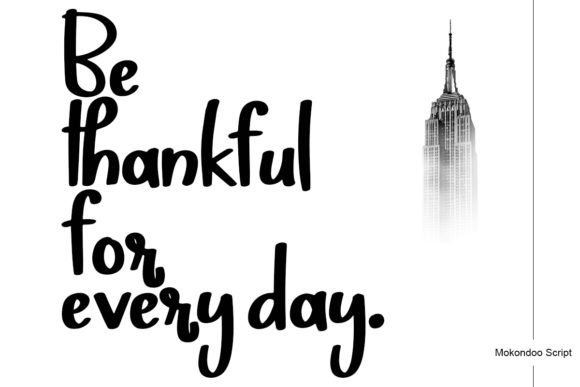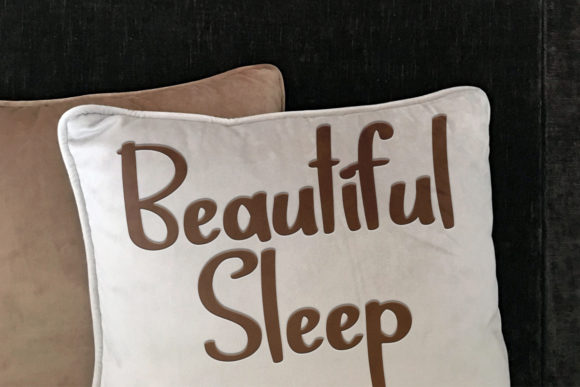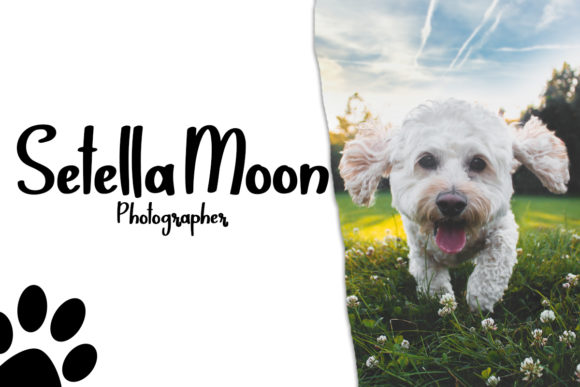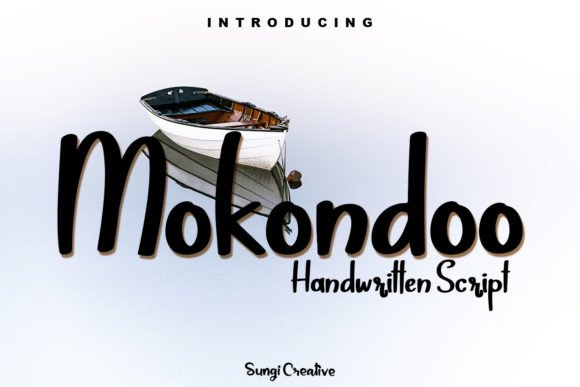
Introduction to Mokondoo Font
Mokondoo is a handwritten script font.
It features a great style that can really enhance your projects It’s perfect for branding projects, logos, wedding designs, social media posts, advertisements, product packaging, product design, labels, photography, watermarks, invitations, stationery, and more.
Key Features of Mokondoo Font
Why Choose Mokondoo Font?
Mokondoo Font offers exceptional quality and versatility, making it a valuable addition to your design toolkit. Whether you’re creating for personal projects or commercial use, Mokondoo Font delivers professional results.